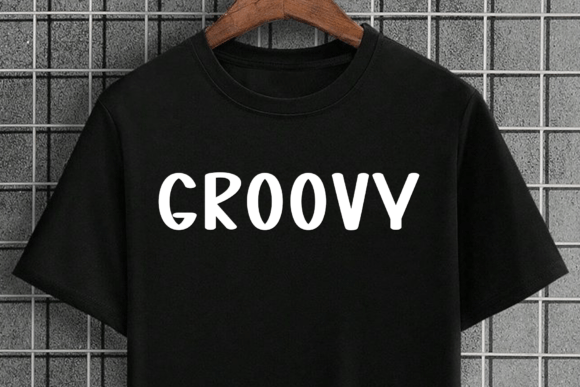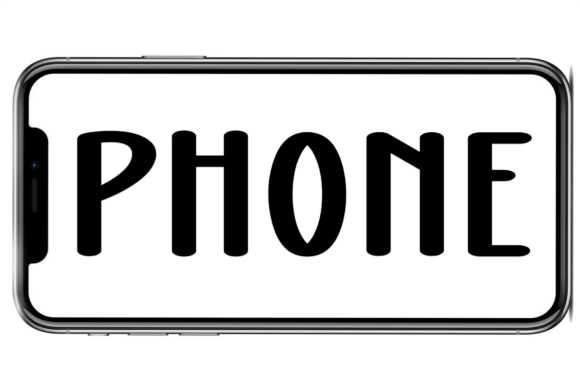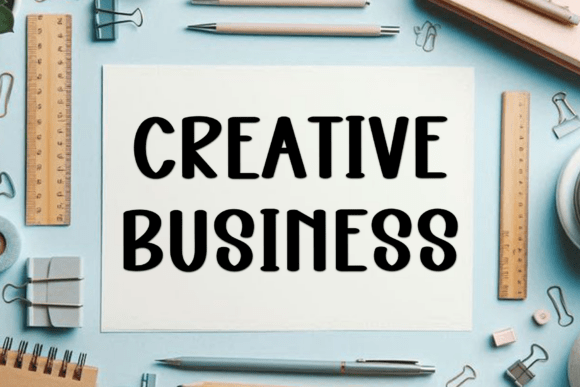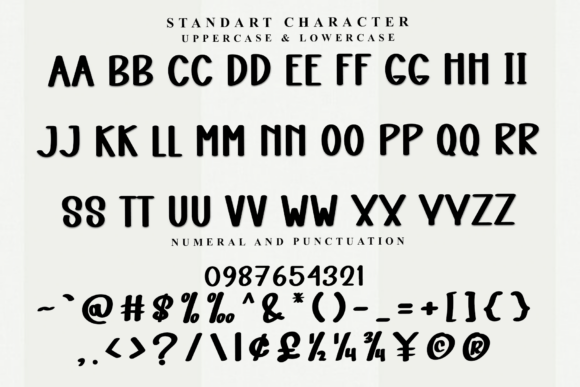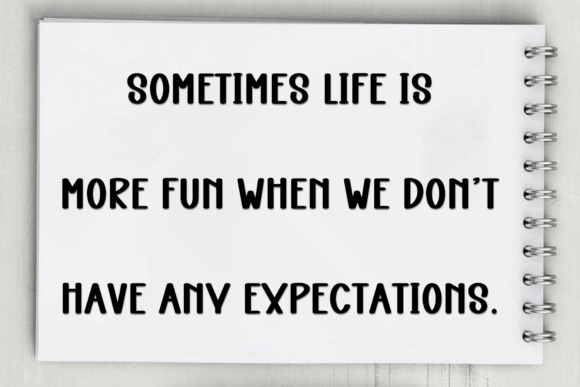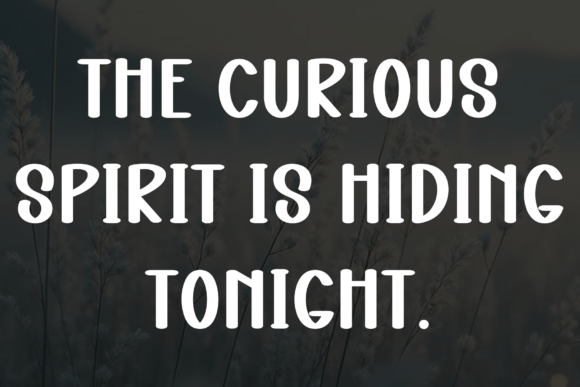
Discover the Beauty of Bold Bloom Font
Do you remember the thrill of discovering a new font that perfectly captures the essence of your creative vision? It’s that moment when all your design ideas come together in harmony, and you know you’ve found something special. For designers and crafters alike, finding the right font can be a game-changer.
Enter Bold Bloom Font, a stunning and versatile typeface that brings a touch of elegance to any design project. Its unique strokes and soft character make it a standout choice for a wide range of creative works. Whether you’re designing a logo, creating a craft project, or simply looking to add a personal touch to your digital content, Bold Bloom Font is an excellent choice. With its compatibility across various applications, including Windows and open-source platforms, this natural font style is a valuable asset for any designer.
Bold Bloom Font Key Features
- Unique Characteristics: Bold Bloom Font features a unique blend of modern and vintage elements, with intricate details and subtle texture, giving it a distinctive and eye-catching look.
- Letterform Design: The font’s letterforms are carefully crafted to provide optimal legibility, with clear distinctions between similar letters and a consistent x-height.
- Font Pairing: The font’s versatility allows it to pair well with a wide range of font styles, from sans-serif to script fonts, making it easy to create visually appealing designs.
Designer Review: Bold Bloom Font
As a designer, I’ve had the chance to work with a wide variety of fonts, and I’m excited to share my thoughts on the Bold Bloom Font. ✨ First off, I love the playful, energetic vibe that this font brings to the table. It’s perfect for creating eye-catching headings, titles, and graphics that demand attention. The bold lines and vibrant colors make it an excellent choice for modern branding and marketing materials.
One of the standout features of Bold Bloom is its versatility. ✨ It’s available in multiple styles, from sans-serif to script, which allows designers to experiment with different looks and feels. Additionally, the font’s extensive character set and ligature support make it suitable for a wide range of applications, from print to digital.
- ⚠️ Limited legibility at small font sizes
- ⚠️ Can be overwhelming in large quantities
- ⚠️ Not suitable for traditional or formal designs
Overall, I’m impressed with the Bold Bloom Font’s creativity and flexibility. While it may not be the best choice for every design project, it’s an excellent addition to any designer’s toolkit. With its unique style and extensive feature set, Bold Bloom is sure to add a pop of personality to any design.
Bold Bloom Font is perfect for:
- Event marketing materials.